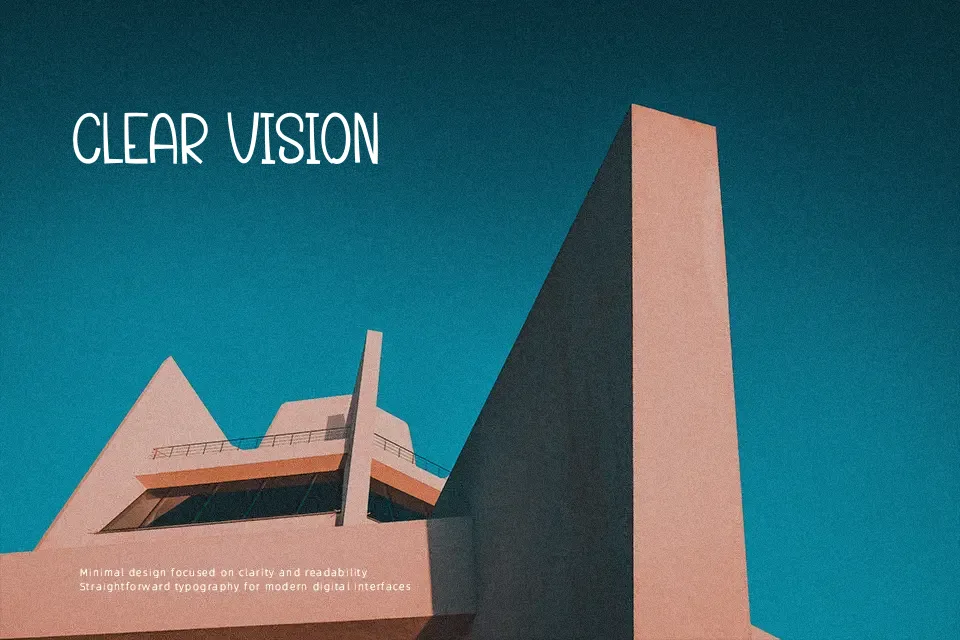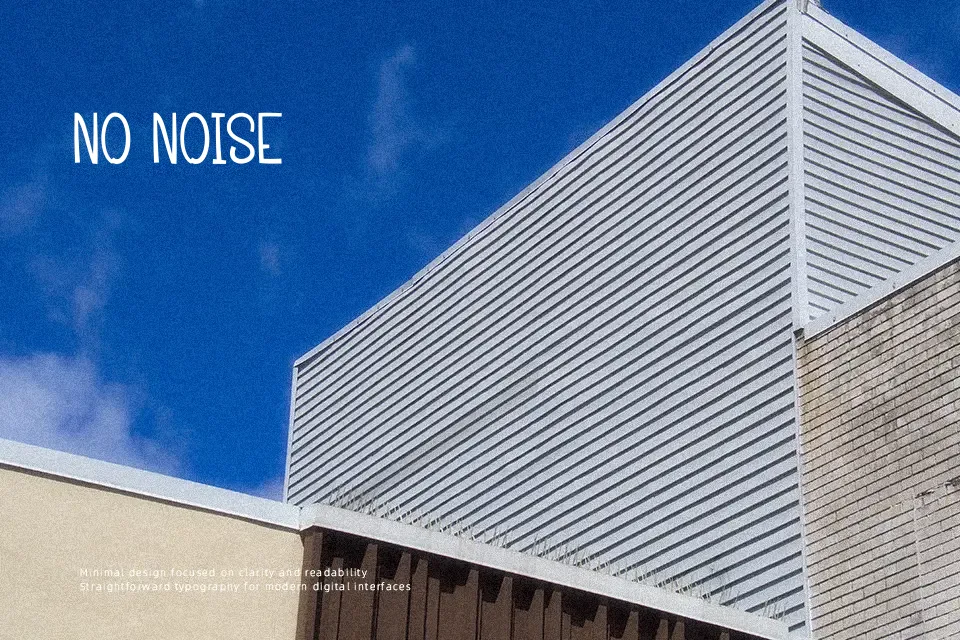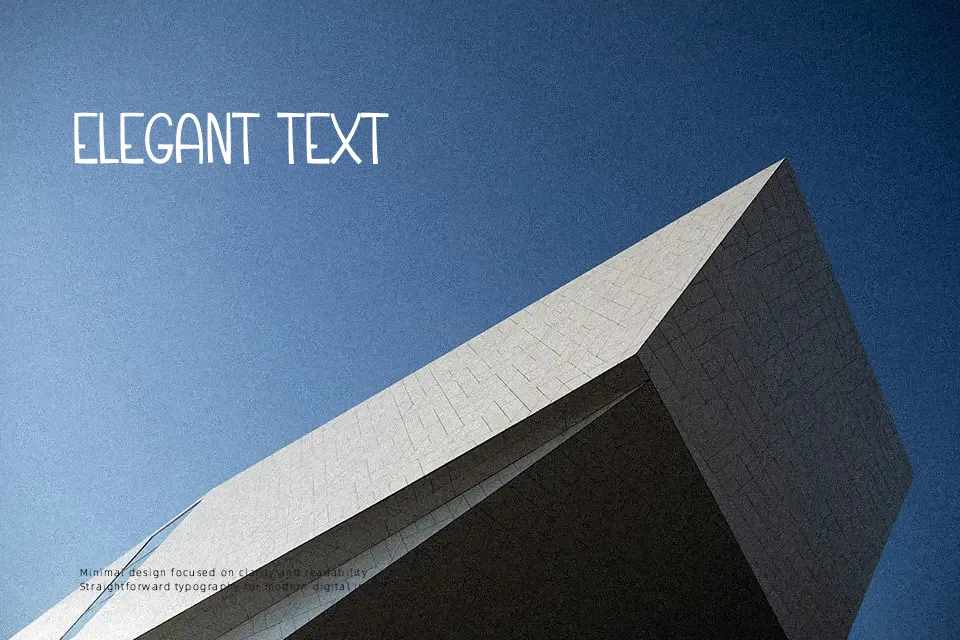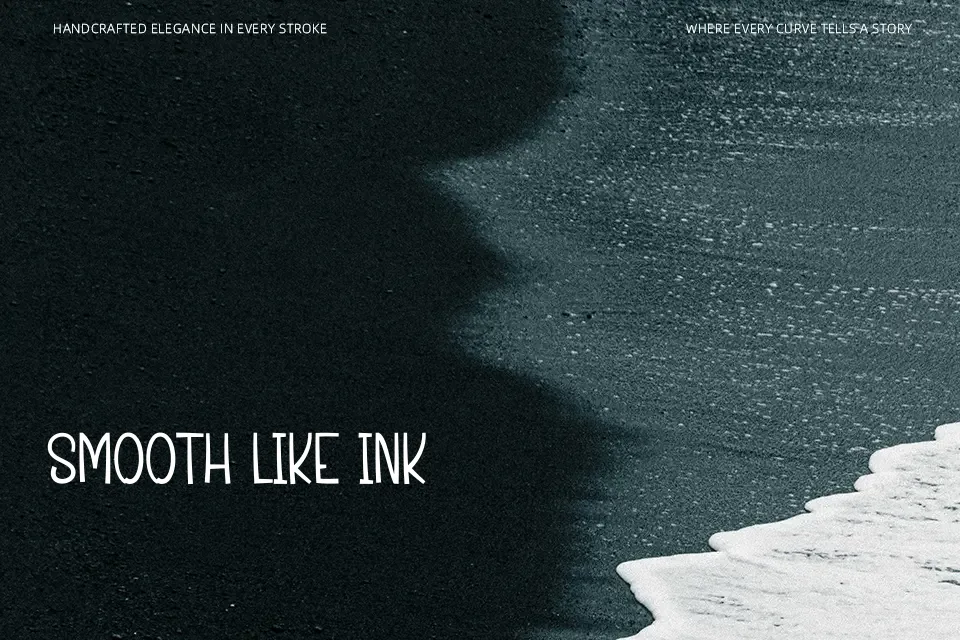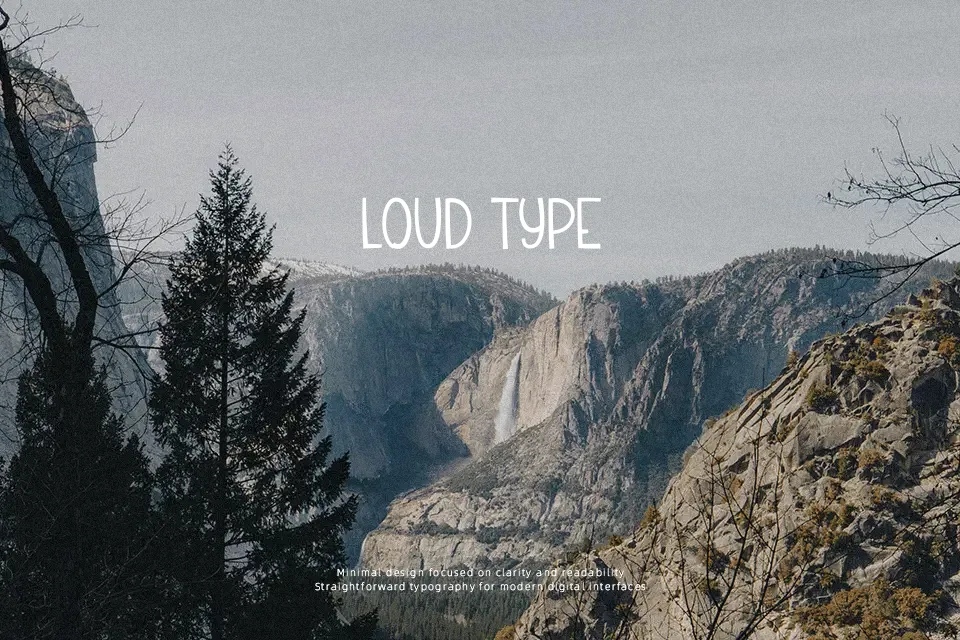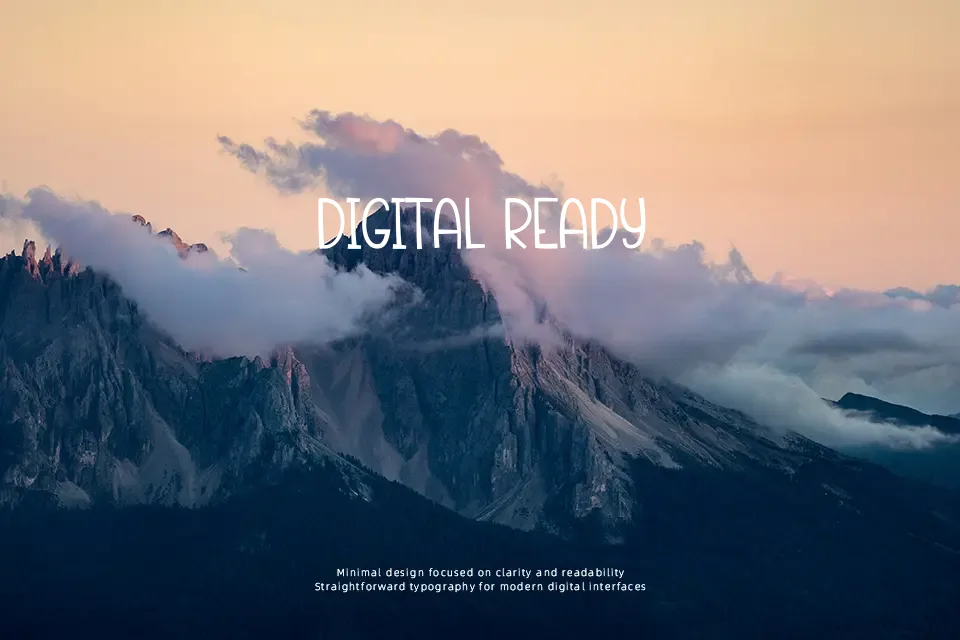
Surprise Birthday Font
Surprise Birthday Font presents an informal handwritten structure characterized by fluid, varied stroke weights and rounded letter terminals. The letterforms display relaxed ascenders and uneven baseline rhythms that create a buoyant, handcrafted atmosphere suitable for party signage, customized stationery, and merchandise packaging. Character spacing is moderately open, which helps maintain clarity in large display headlines without adjacent glyphs colliding. However, the organic irregularities and decorative flourishes reduce reading comfort in extended body copy or small interface captions. For optimal visual balance, the design performs most effectively when applied to prominent titles and short celebratory phrases where individual letter shapes can be fully appreciated.
Best For: party invitations,greeting card headlines,event banners,festive product packaging
Not Ideal For: long paragraph text,dense corporate reports,small interface labels,technical documentation
Perfect for holiday, invitation, and packaging, with a cute and decorative style.